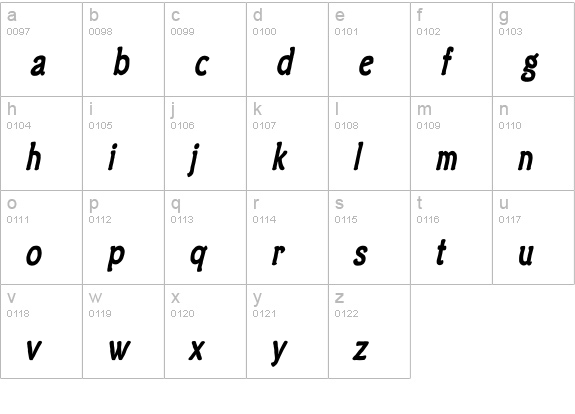
ClicheeCE-BoldOblique Font Details
ClicheeCE-BoldOblique font is a stunning and versatile typeface that effortlessly combines boldness with elegance. Its unique oblique style adds a touch of sophistication to any design project, making it perfect for both headings and body text. The sharp angles and smooth curves of this font create a dynamic visual impact that will captivate your audience. What makes ClicheeCE-BoldOblique font even more appealing is that it is available for free download at FontsMarket.com. This means you can easily access this high-quality font without any cost, making it a fantastic choice for designers looking to enhance their work without breaking the bank. With its modern aesthetic and professional appeal, ClicheeCE-BoldOblique font is sure to elevate your design projects to the next level.